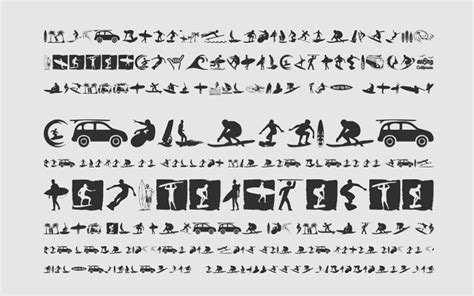
Surf Font Free. Web surf fonts have a surfer style vibe and are perfect for beach and summer designs.
Web surf fonts have a surfer style vibe and are perfect for beach and summer designs.
Web surf fonts have a surfer style vibe and are perfect for beach and summer designs. Web surf fonts have a surfer style vibe and are perfect for beach and summer designs.